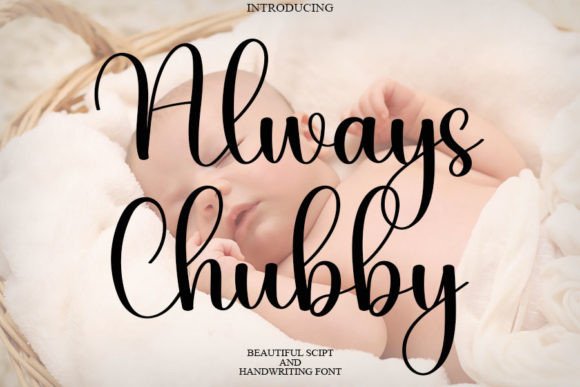
Dive into the world of cinematic elegance with Always Chubby, a script font family that exudes charm and sophistication. Inspired by the silver screen, this font dances across the baseline like a graceful melody, adding a touch of luxury to every design it graces.
With its sweeping curves and playful personality, Always Chubby captures the essence of handwritten elegance. Its characters flow effortlessly, creating a sense of movement and energy that is sure to captivate your audience. Whether you're designing movie posters, creating wedding invitations, or crafting social media graphics, Always Chubby will elevate your work to new heights.
Step into the spotlight and embrace the magic of Always Chubby. Let your designs shine with a font that commands attention and leaves a lasting impression. Its versatility knows no bounds, making it the perfect choice for a wide range of projects. From whimsical branding to elegant presentations, Always Chubby will transform your creative vision into a masterpiece.
Indulge in the exquisite details of Always Chubby, meticulously crafted by Ganden Letter. Each character is a work of art, featuring delicate flourishes and stunning ligatures that add depth and dimension to your designs. The font's generous spacing ensures readability, while its subtle variations in thickness create a visually captivating effect.
Unleash your creativity and embark on a cinematic journey with Always Chubby. Let your imagination soar as you explore the endless possibilities this font offers. With Always Chubby by your side, you'll create designs that resonate with your audience and leave them spellbound.